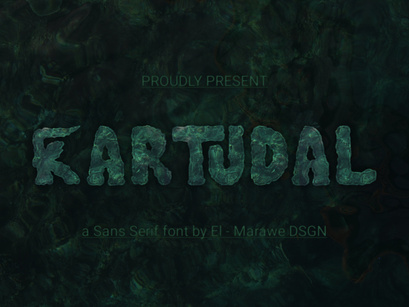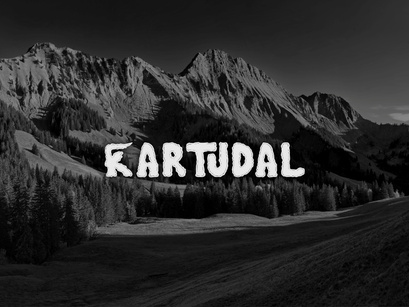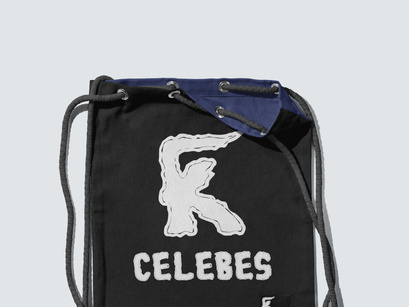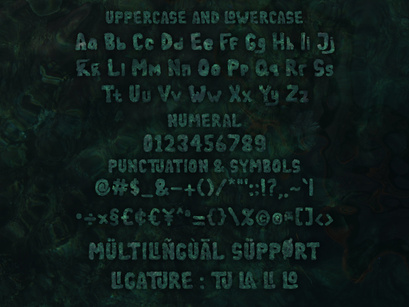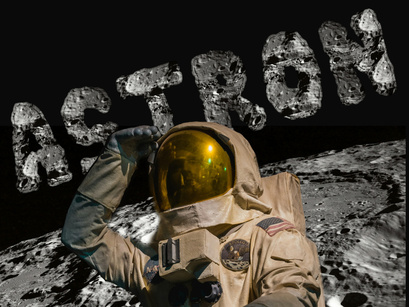
KARTUDAL FONT
Kartudal is a font inspired by the depths of the sea. Each letter seems to be engraved on time-worn rock, bringing a mysterious and magical feel. Suitable for designs that want to convey a natural, strong and characterful impression. Perfect for adventure book titles, thriller movie posters, or brand logo designs that want to stand out